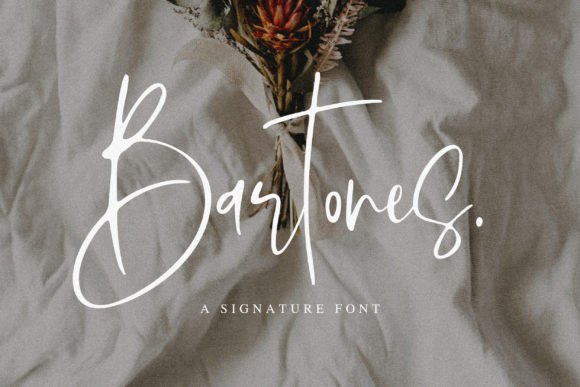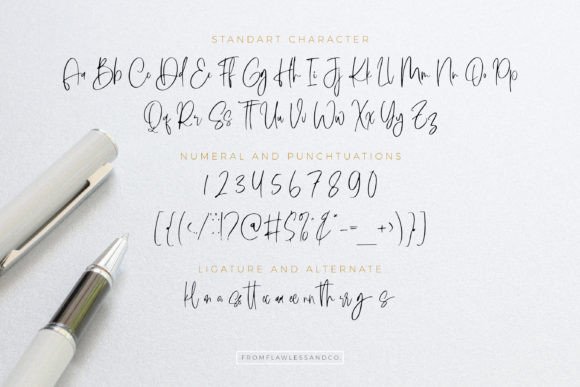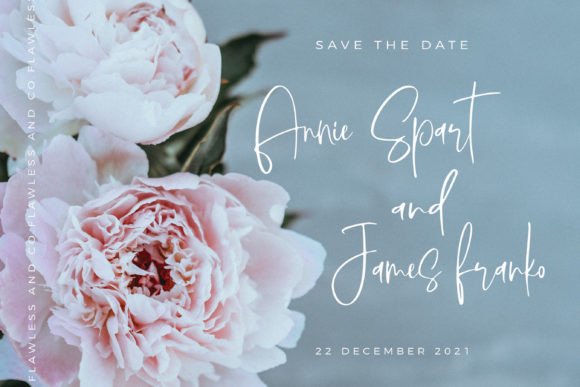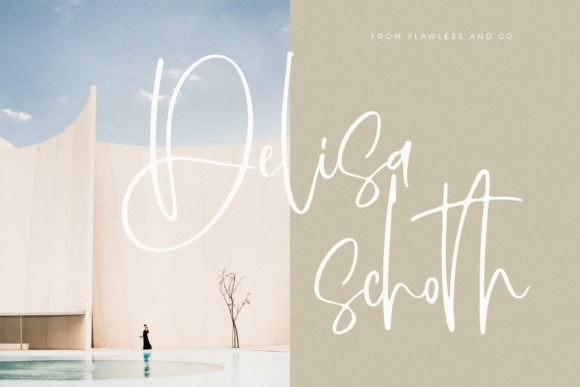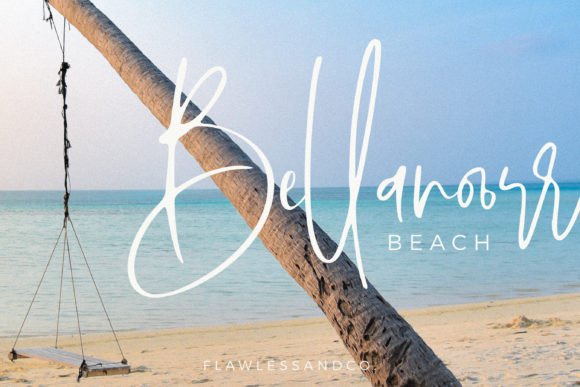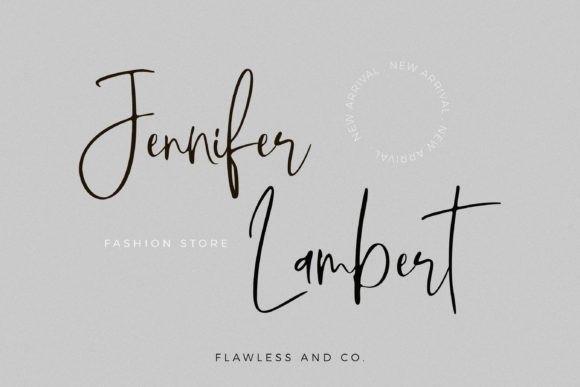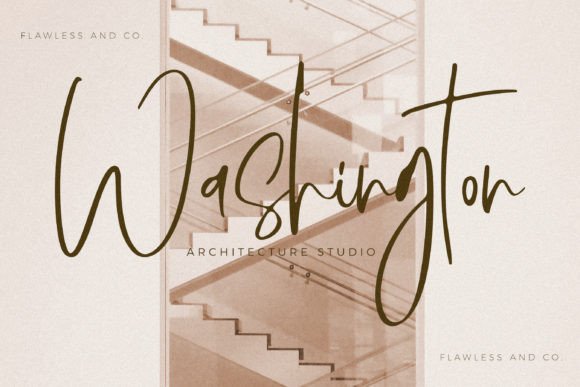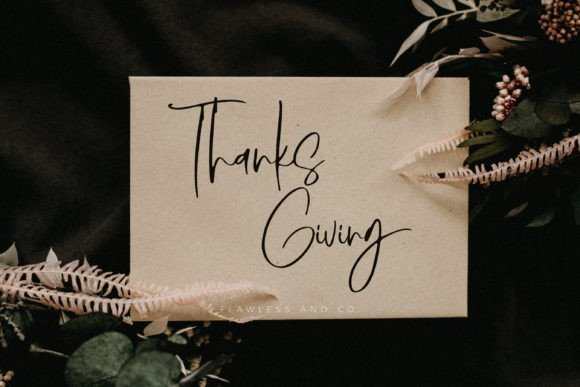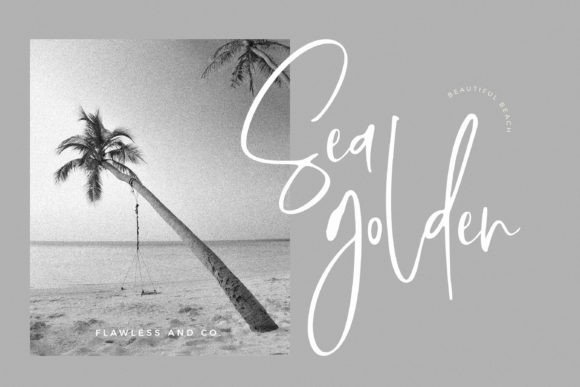
Bartones Font
About Bartones Font
**Bartones: The Beautiful and Light Handwritten Font**
*Bartones* is an exquisite handwritten font that exudes elegance and charm. With its unique and luxurious feel, this font has the power to elevate any design project to a higher level of sophistication.
One of the defining characteristics of Bartones is its delicate and graceful appearance. The font’s letters are meticulously crafted with a light and airy touch, giving them a sense of refinement and beauty. This inherent elegance makes Bartones an ideal choice for projects that require a touch of luxury and sophistication.
When it comes to design projects, Bartones is a versatile and stylish font. Its luxurious look makes it particularly well-suited for high-end branding and product packaging. From perfume labels to boutique logos, Bartones adds a sense of opulence and exclusivity that captivates customers and leaves a lasting impression.
Wedding stationery is another area where Bartones shines. Its beautiful and light handwritten style lends itself perfectly to elegant invitations, save-the-dates, and thank-you cards. Bartones transforms these wedding essentials into exquisite keepsakes that reflect the couple’s refined taste and love for beauty.
The font’s unique feel also makes it a great choice for editorial design. Whether it’s fashion magazines, beauty blogs, or lifestyle publications, Bartones adds a touch of sophistication to editorial layouts. Its airy and elegant characters effortlessly draw readers in and enhance the overall reading experience.
When it comes to creating digital content, Bartones can be a secret weapon for adding a touch of luxury. Use it for website headers, social media posts, or email newsletters to create an upscale and stylish online presence. Bartones will help your content stand out and leave a lasting impression on your audience.
In summary, *Bartones* is a beautiful and light handwritten font that embodies luxury and elegance. Its versatility and unique feel make it a perfect choice for high-end branding, wedding stationery, editorial design, and digital content. Embrace Bartones’ sophistication and let it infuse your projects with a touch of refined beauty.